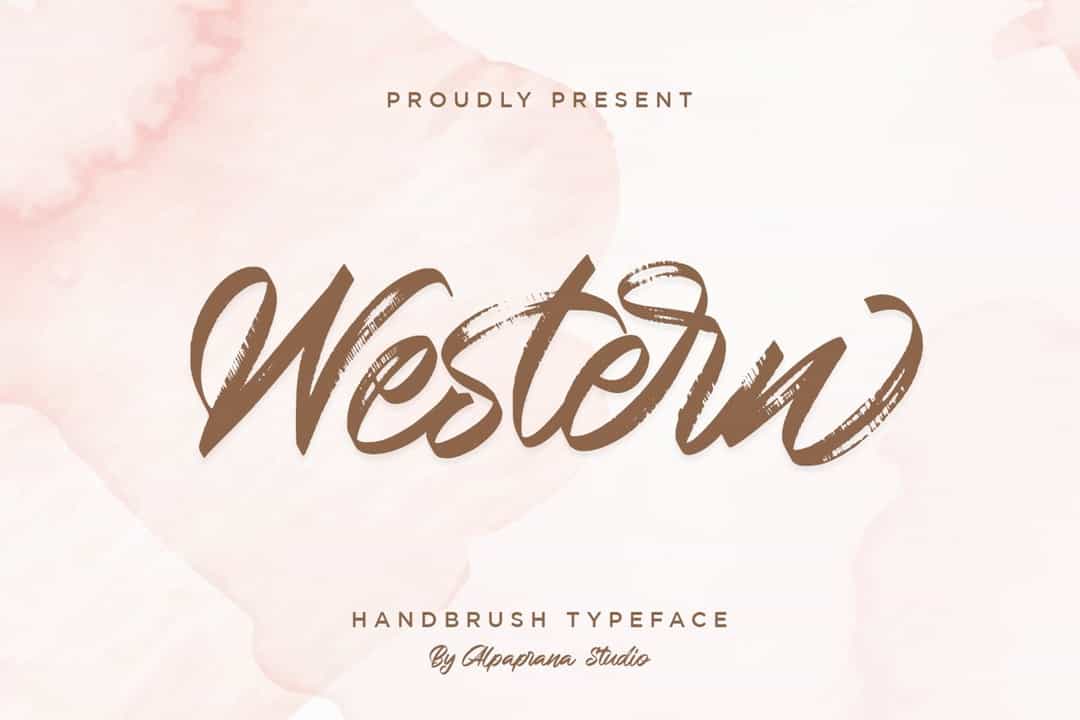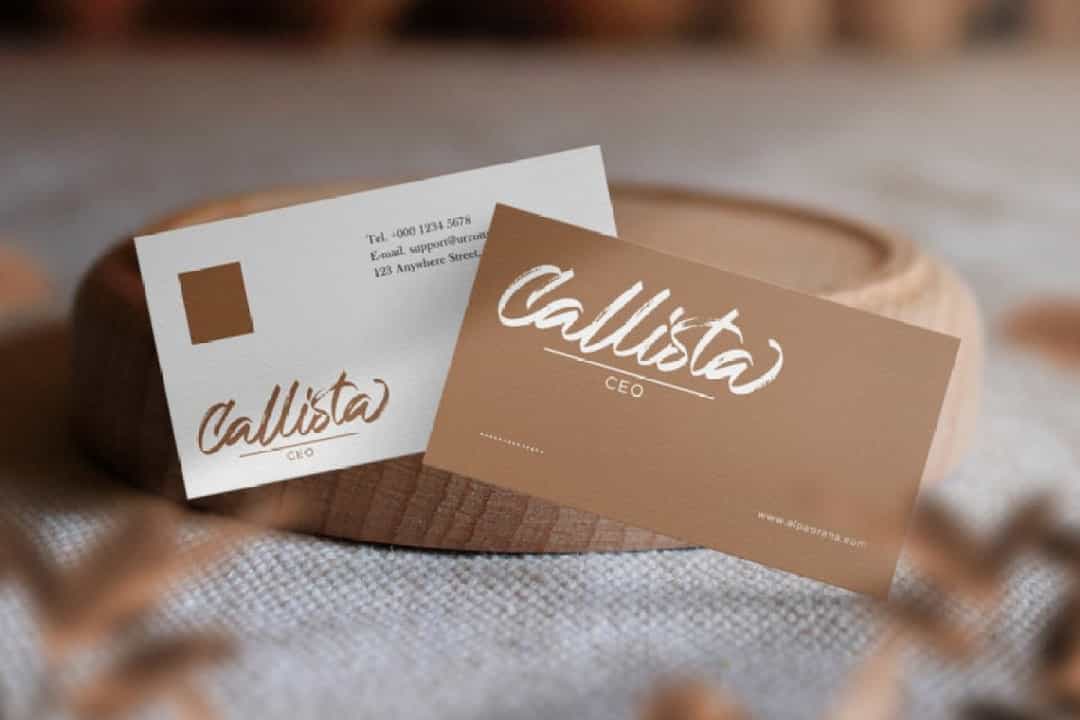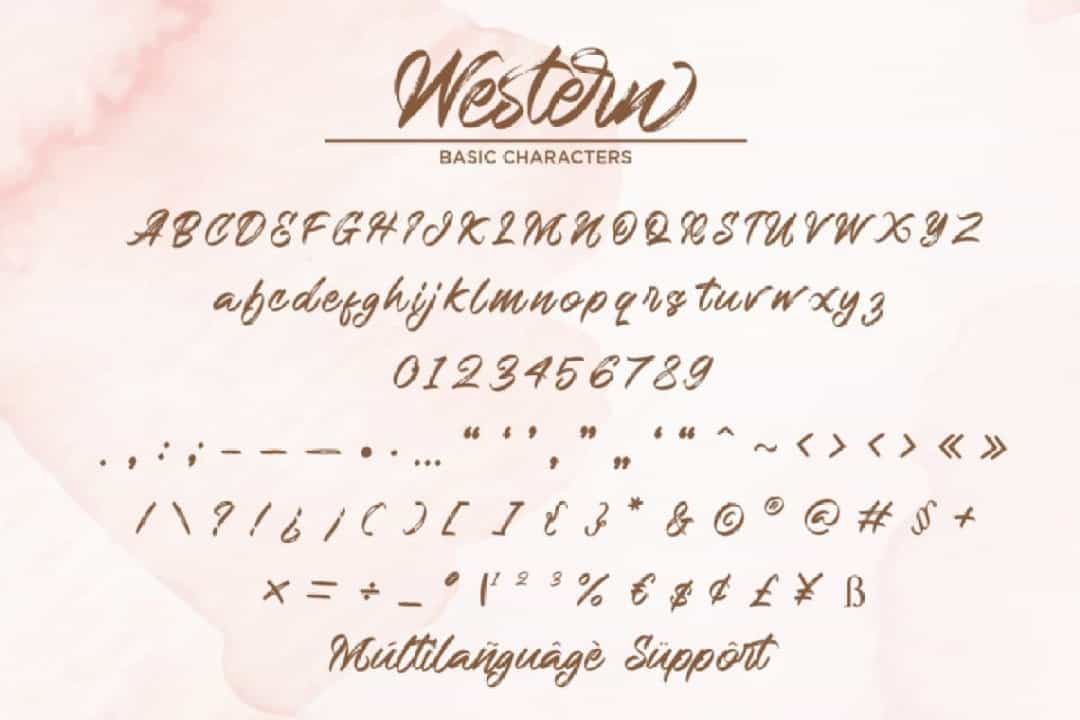
Western is the perfect font that embodies the modern sophistication, casual elegance and freedom that is ideal for logo designs, lettering projects, clothing packaging designs, magazines, poster prints for shopping bags as well as for bags that are used in shopping malls, T-shirt designs, book covers, photography of special events and other design projects.